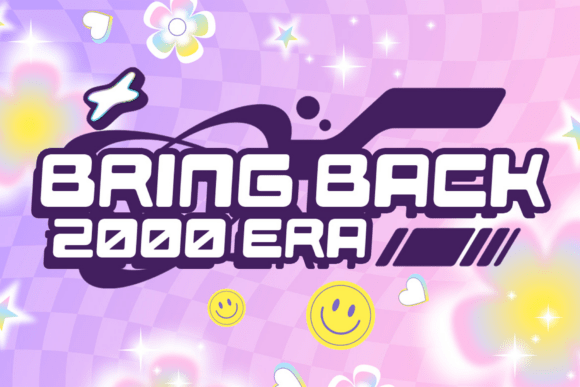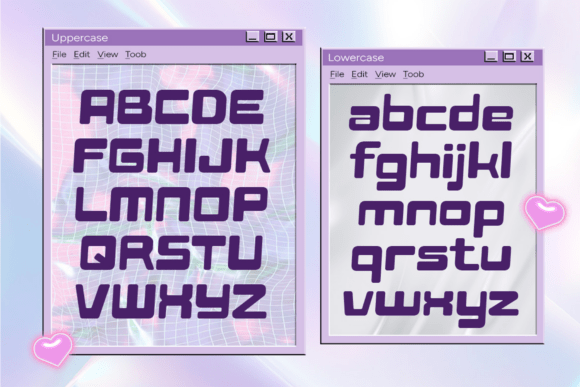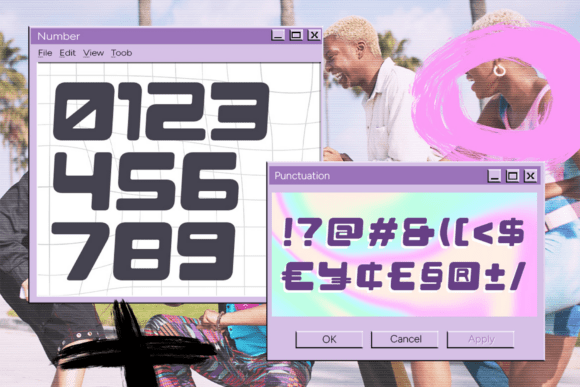
Introduction to Pikabu Font
Have you ever been browsing through old photos and stumbled upon a pixelated screenshot from a late-night gaming session or a Myspace profile? The nostalgia washes over you, and you’re instantly transported back to the digital era of the early 2000s. That’s exactly what the Pikabu Font is all about – capturing the essence of Y2K vibes and bringing it to your modern designs.
As a designer, you’re always on the lookout for that perfect font to give your project a unique touch. The Pikabu Font is a game-changer, offering high-quality, retro-futuristic energy that’s perfect for branding, logos, social media, and more. With its smooth curves and techy edges, this font is a valuable design resource that can elevate any creative project. Plus, with free download options available, you can experiment with this font and see how it adds a fresh, playful, and energetic feel to your designs.
Key Features of Pikabu Font
- High-quality design resource with a unique and creative style suitable for various projects.
- Perfect for designers looking for a distinctive and creative font to elevate their project.
Honest Review: Pikabu Font
I recently stumbled upon the Pikabu Font and I’m excited to share my thoughts with you. As a designer, I’m always on the lookout for high-quality fonts to elevate my creative projects. Pikabu Font is a great addition to any design resource collection.
- Unique design style that adds a touch of whimsy to any project ✨
While Pikabu Font is a solid choice, I did encounter a few limitations:
- Limited character set, which may not be suitable for longer text-based projects ⚠️
- No bold or italic font styles available, which may be a drawback for some designers
Overall, I’m impressed with Pikabu Font’s unique design and versatility. While it may not be perfect, it’s a great addition to any design resource collection and can add a touch of creativity to your projects. If you’re looking for a high-quality, free font, Pikabu Font is definitely worth checking out.
The Pikabu Font is a versatile and unique design resource perfect for any high-quality, creative project. Its transparent background makes it an ideal choice for overlays and text effects.
Tips for Getting the Most Out of Pikabu Font
Experiment with different font sizes and styles to create visually appealing text effects. Combine the Pikabu Font with other design elements to create a unique and eye-catching design.
The Pikabu Font is perfect for:
Overlay text on images or videos
Creating text effects for social media graphics
Designing logos and branding materials